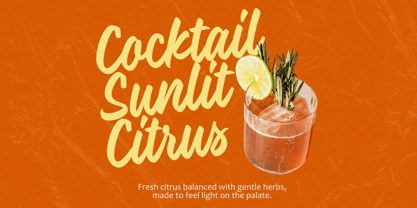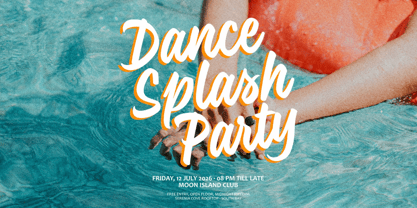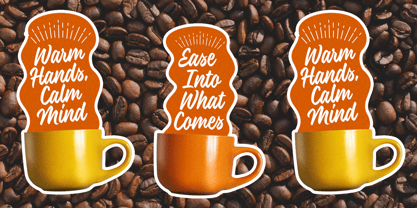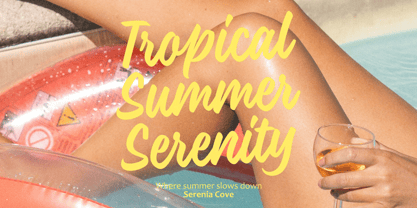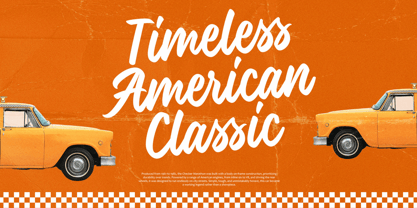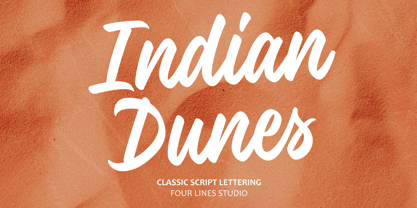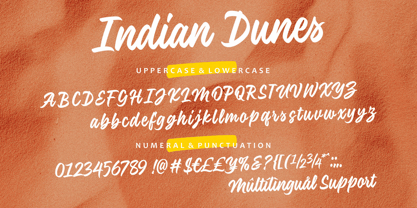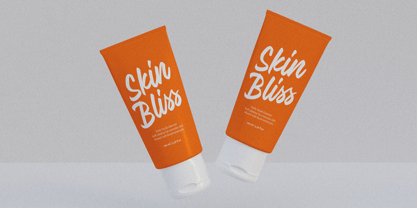
Indian Dunes
by Four Lines Std
The Indian Dunes Font Family was designed by Zain Fahroni and published by Four Lines Std. Indian Dunes contains 1 styles.
Indian Dunes is a modern casual script font inspired by warm landscapes, sunlit moments, and relaxed lifestyles. Designed with smooth curves and balanced strokes, this typeface delivers a friendly yet confident feel, making it perfect for posters, branding, packaging, lifestyle quotes, summer campaigns, and social media visuals. Indian Dunes combines legibility with personality, allowing your designs to feel expressive without losing clarity.
Four Lines Studio is a graphic design studio founded in 2019 by Zain Fahroni in Bandung City, Indonesia. The studio's name is inspired by a friendship story that is close to the founder's heart. Our work is heavily influenced by this friendship, which has given birth to an identity that is associated with fun, playful, and groovy elements. A key area for the studio is typography, with a specific focus on developing fonts that emphasize minimalism and versatility.